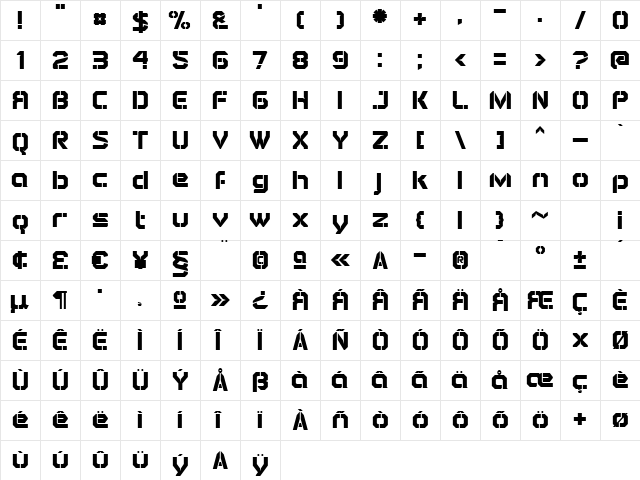
Airbrake Regular
Design Context for Airbrake Typeface
Airbrake is a composed and adaptable typeface that performs quietly and consistently across a wide range of design contexts.
Pro Tip: Pair Airbrake with a font of contrasting weight or personality to build a more expressive typographic hierarchy.